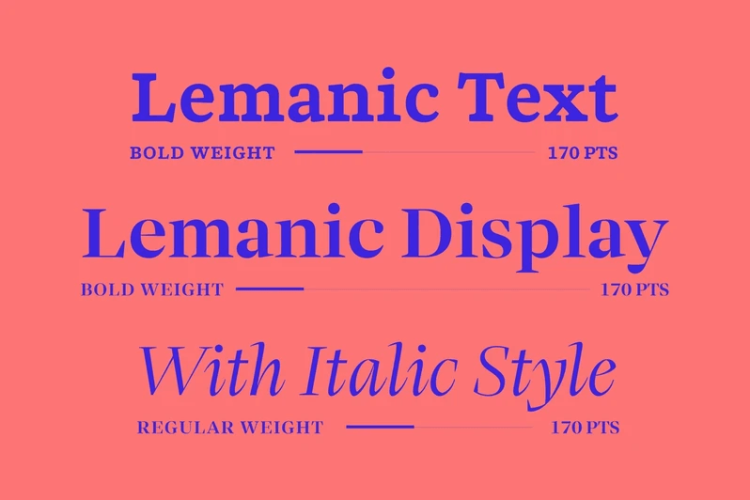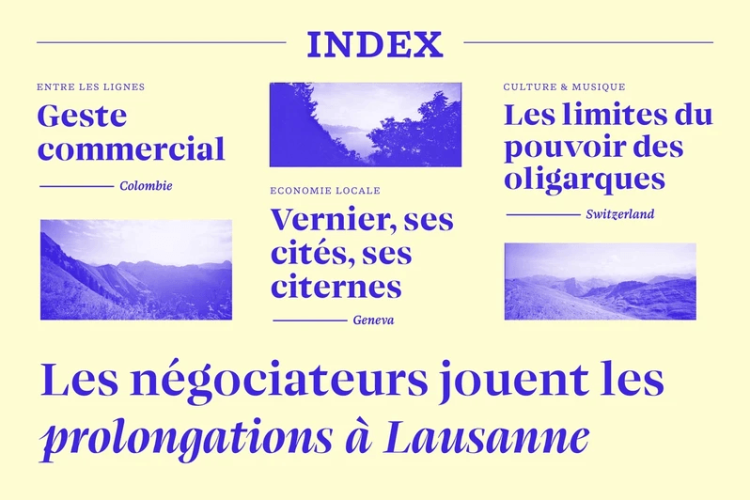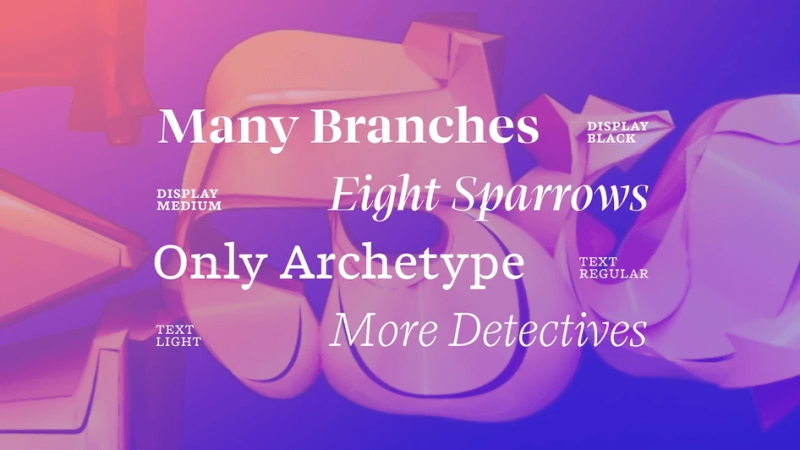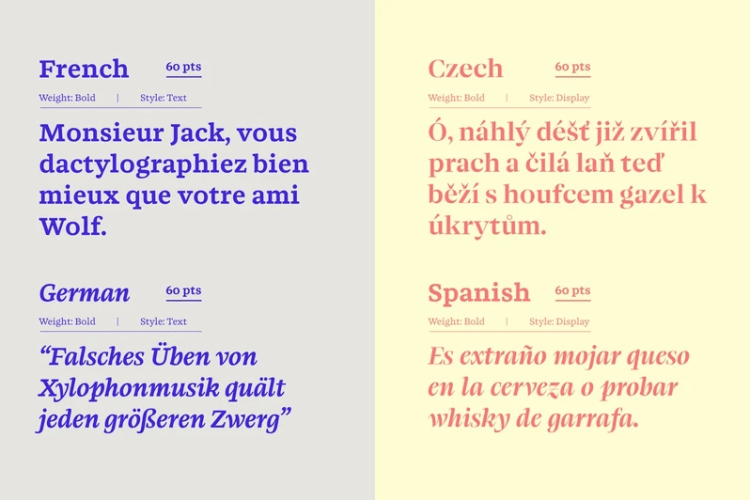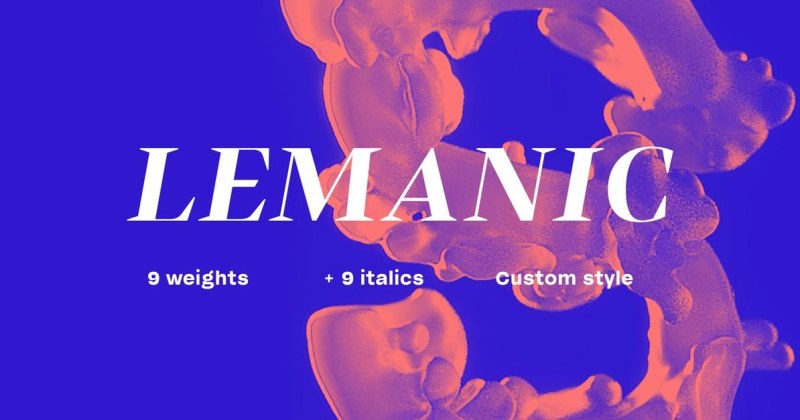
Lemanic Font Family
The Lemanic family started in 2013, with the idea of merging the ideas of Pierre-Simon Fournier with the classic Romain du Roi typeface. Over time, the project grew into…
The Lemanic family started in 2013, with the idea of merging the ideas of Pierre-Simon Fournier with the classic Romain du Roi typeface. Over time, the project grew into a dual family—divided between a robust, almost slab, ‘text’ version, and a sharper, more elegant display version whose appearance is more appropriate for titles.
Where Lemanic Font Family works best
Lemanic Font Family gives long-form text a classic, trustworthy rhythm — ideal for magazine spreads, annual reports and book interiors.
Pair Lemanic Font Family with generous letter-spacing for wordmarks in fashion, hospitality, wine and jewellery branding.
Use Lemanic Font Family for slide titles in Keynote, PowerPoint or Google Slides to add authority without looking dated.
What is Lemanic Font Family good for?